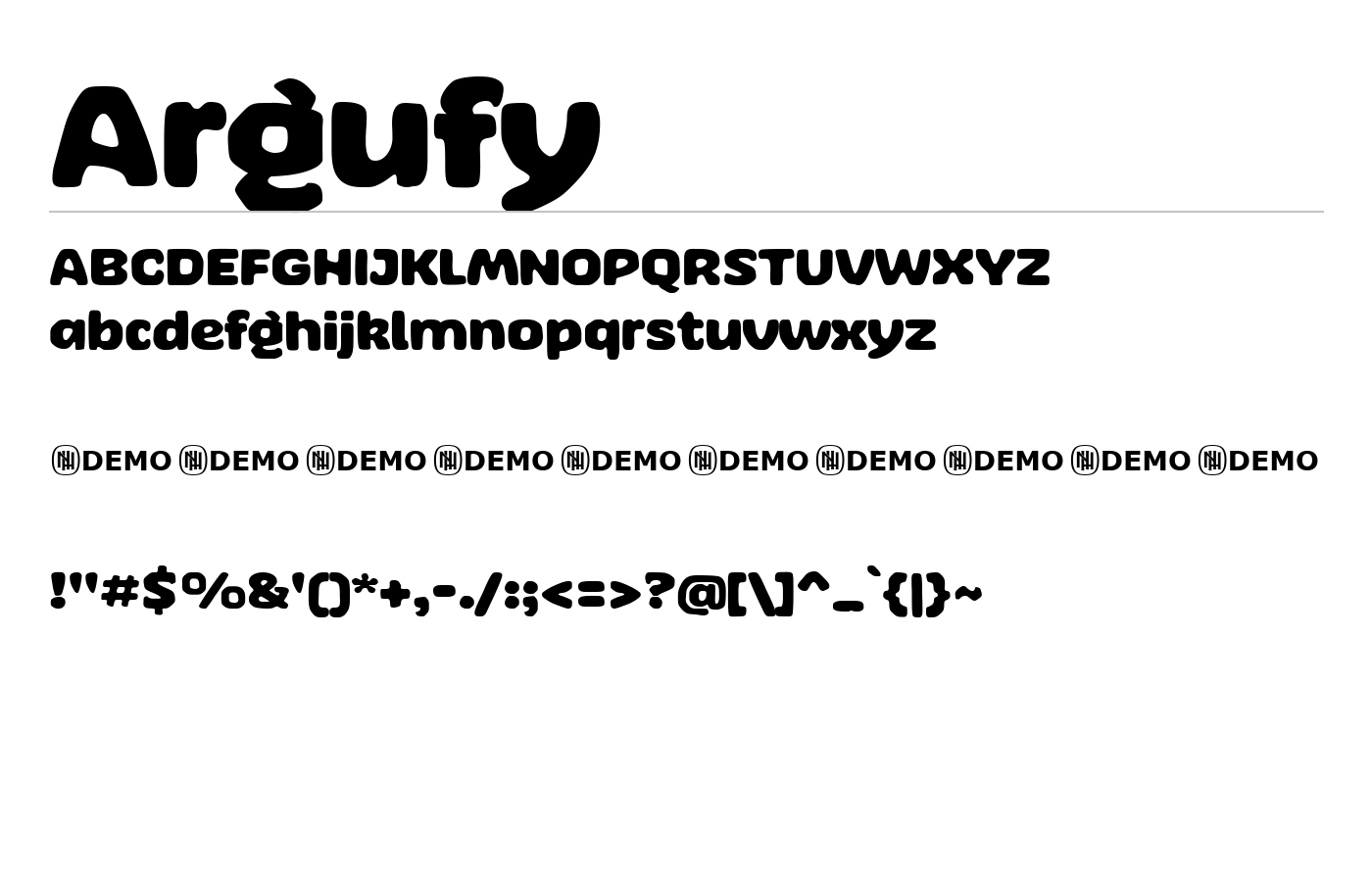
Argufy is a bold and playful sans serif font with rounded, chunky letterforms that convey a friendly and approachable vibe. Its high x-height and soft, slightly irregular shapes make it ideal for informal designs, children’s content, and brands seeking a fun, casual personality. This font works best in logos, headlines, and packaging where a warm and energetic feel is desired.
Argufy Font
About Argufy Font
| Font family | Argufy Font |
| Designer | Ali Hamidi |